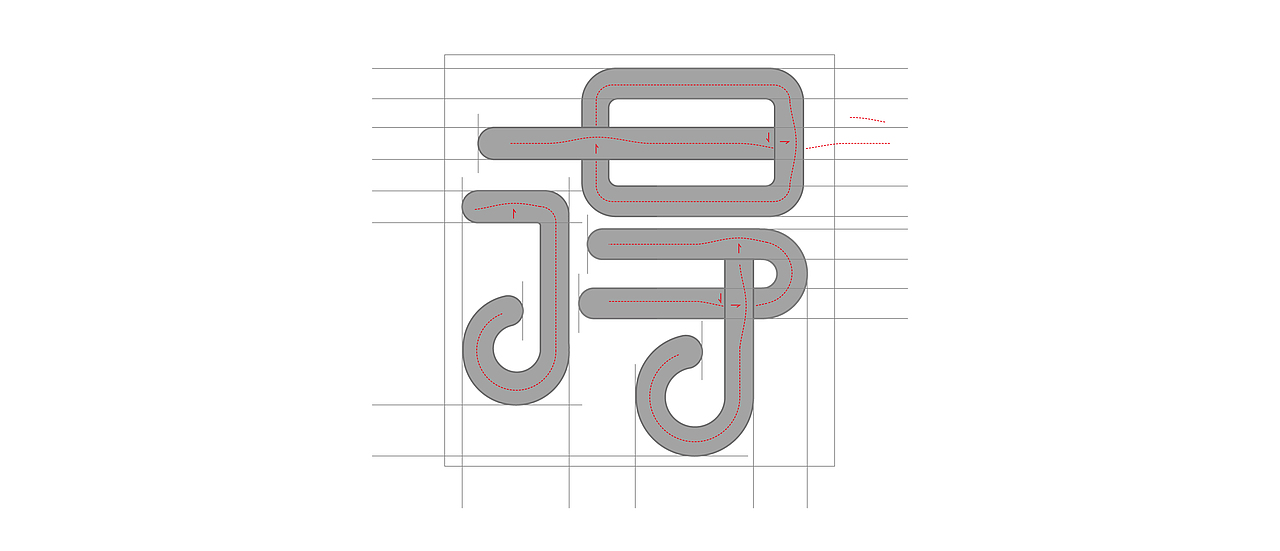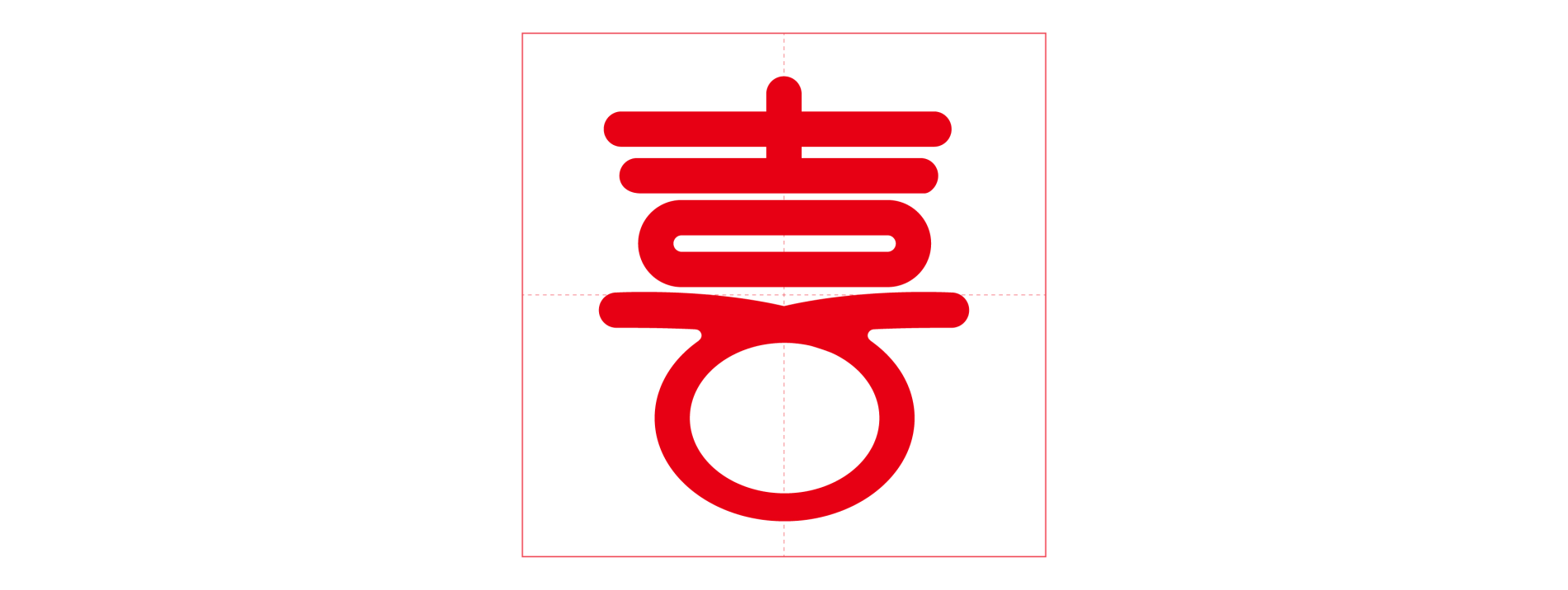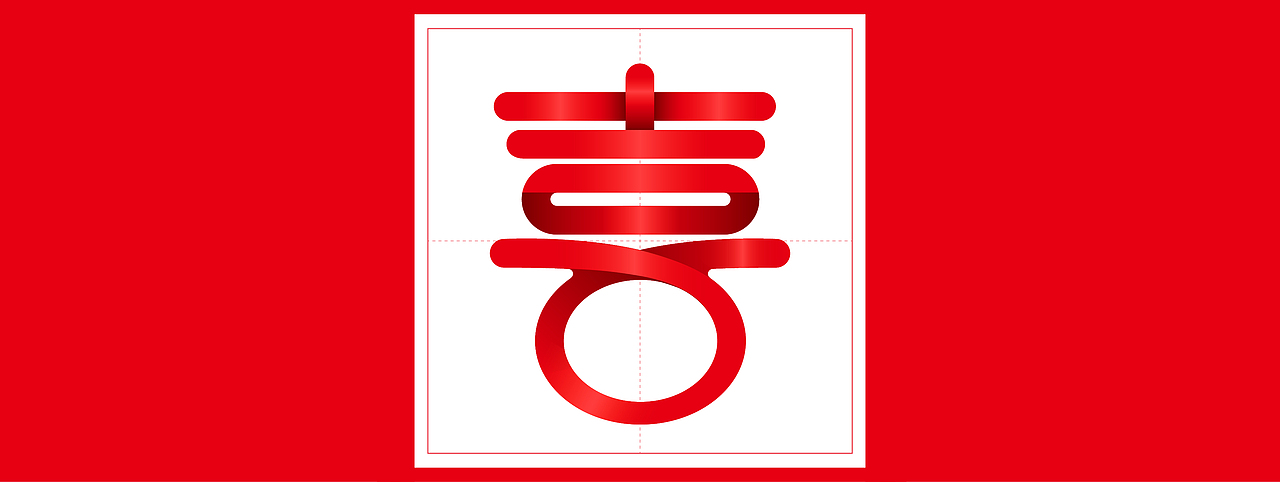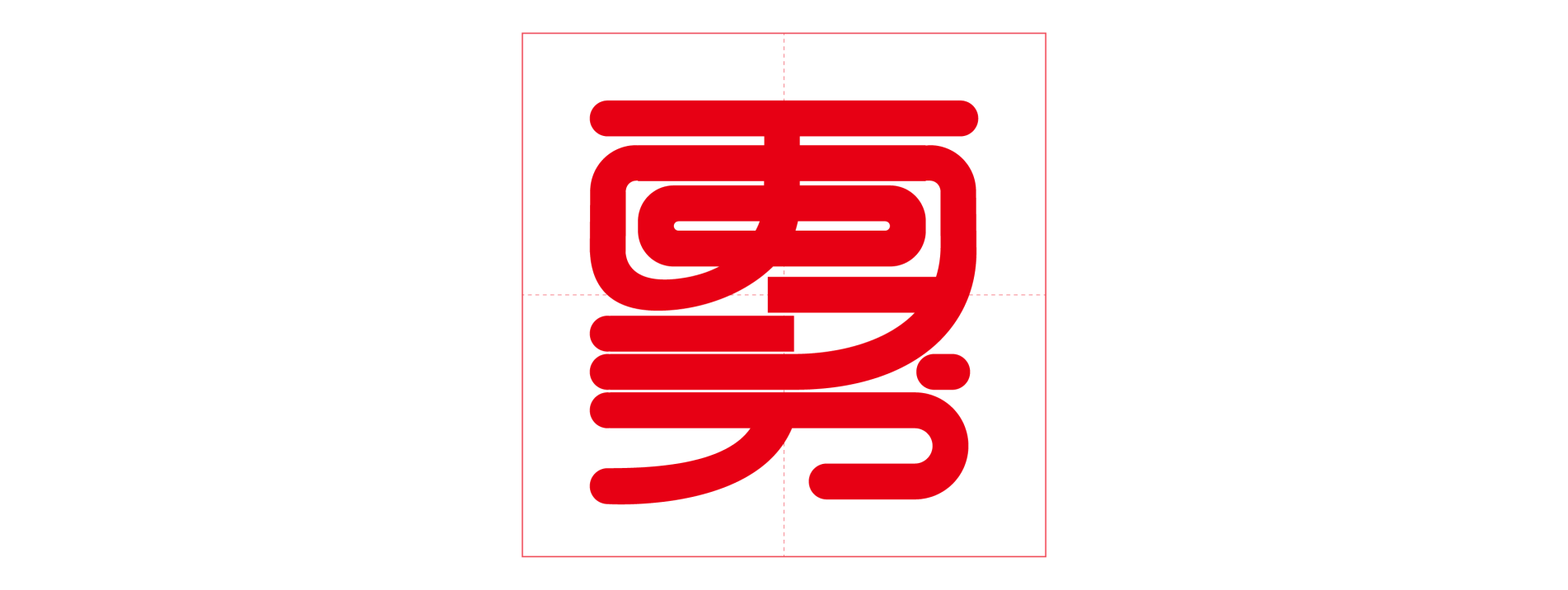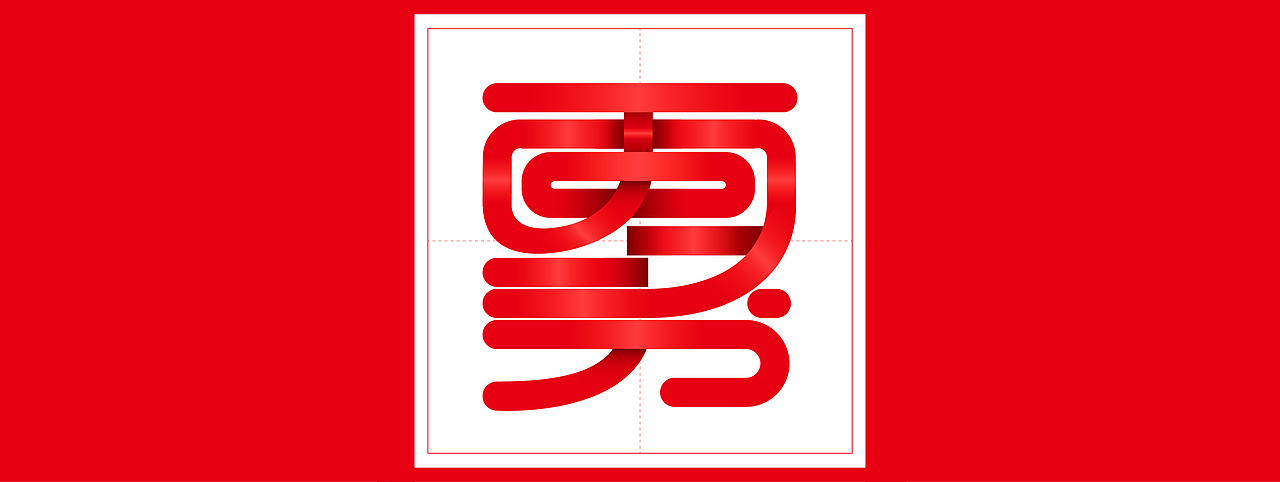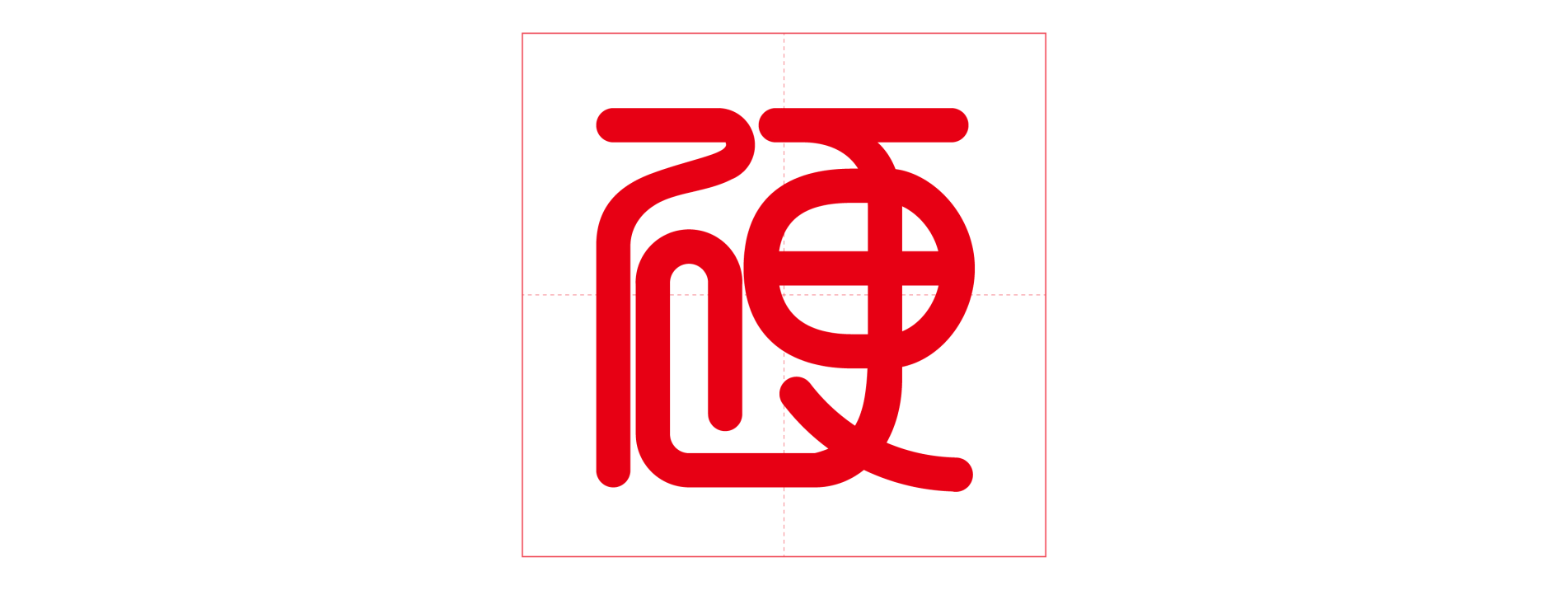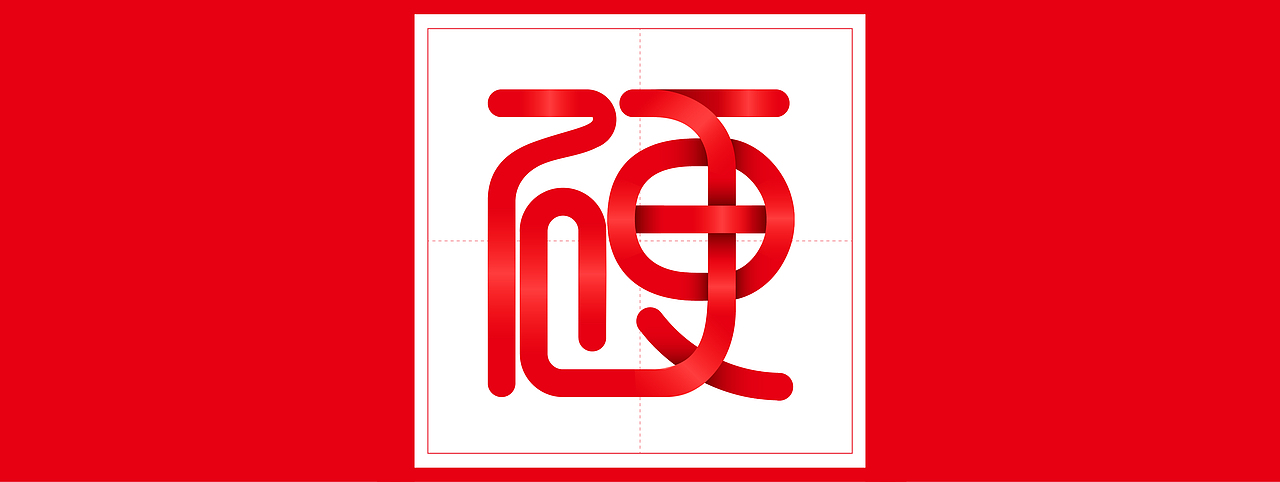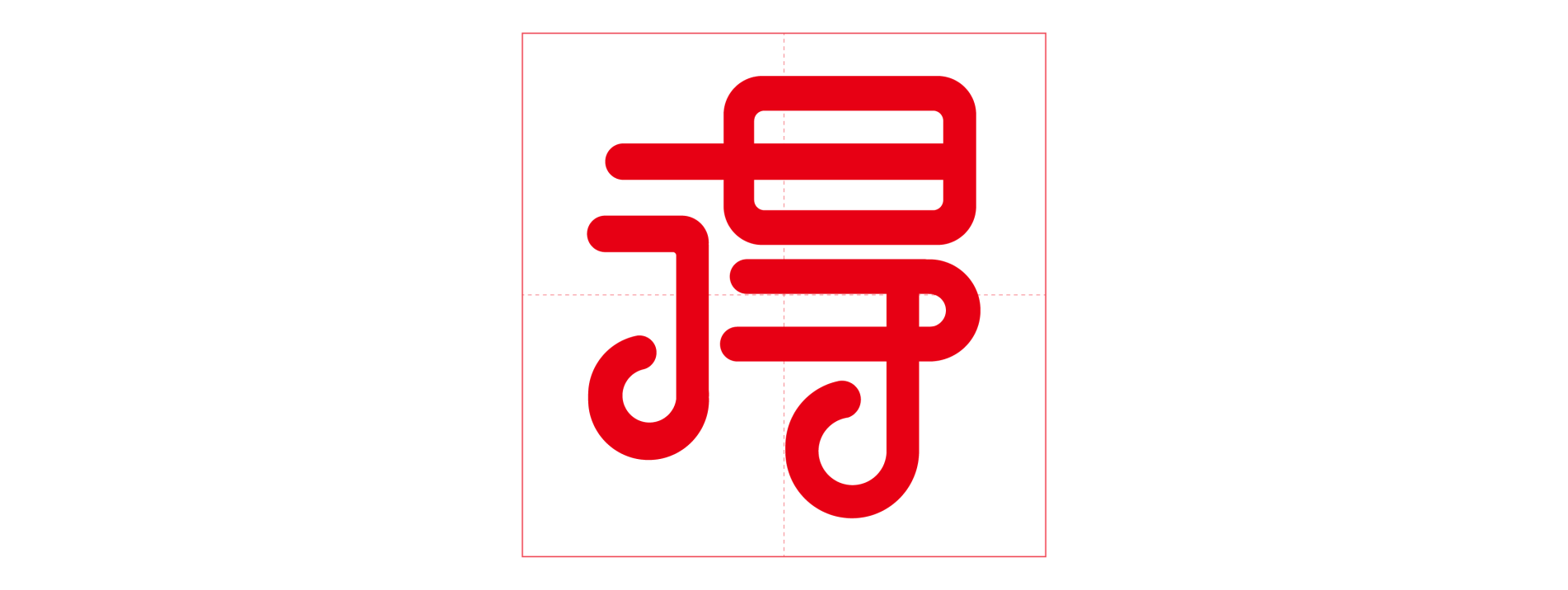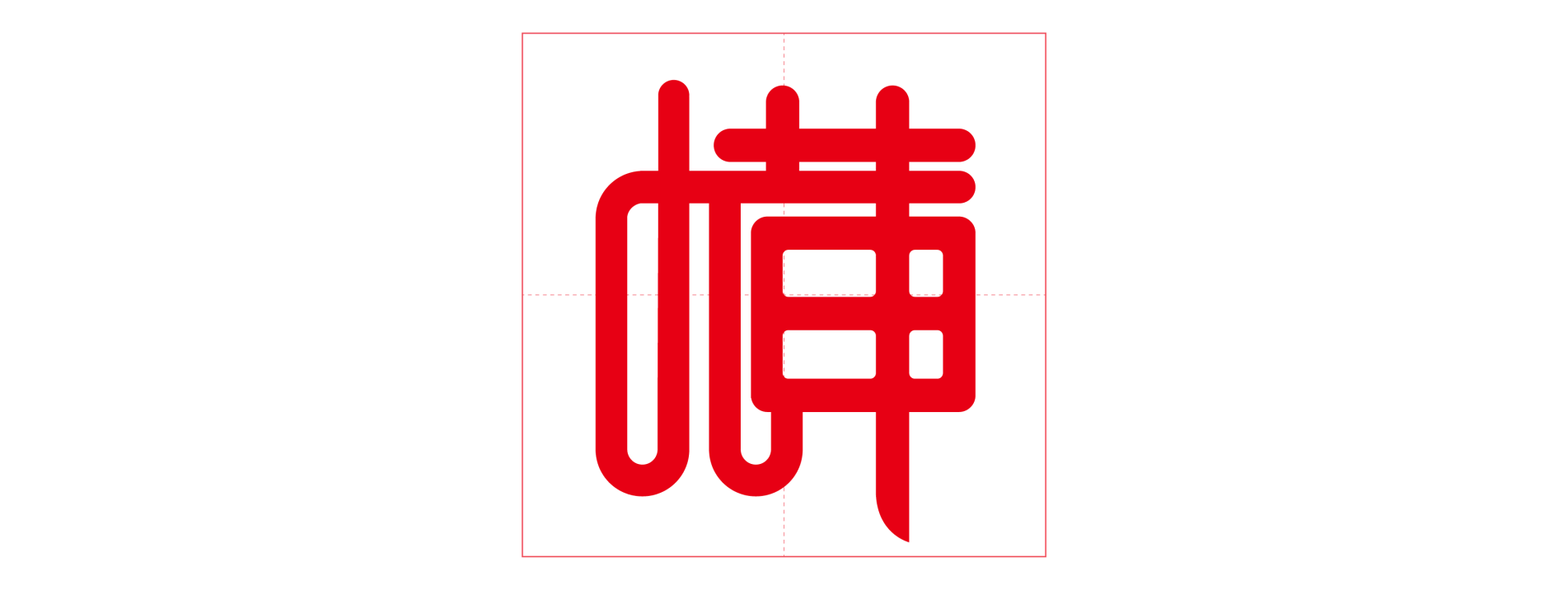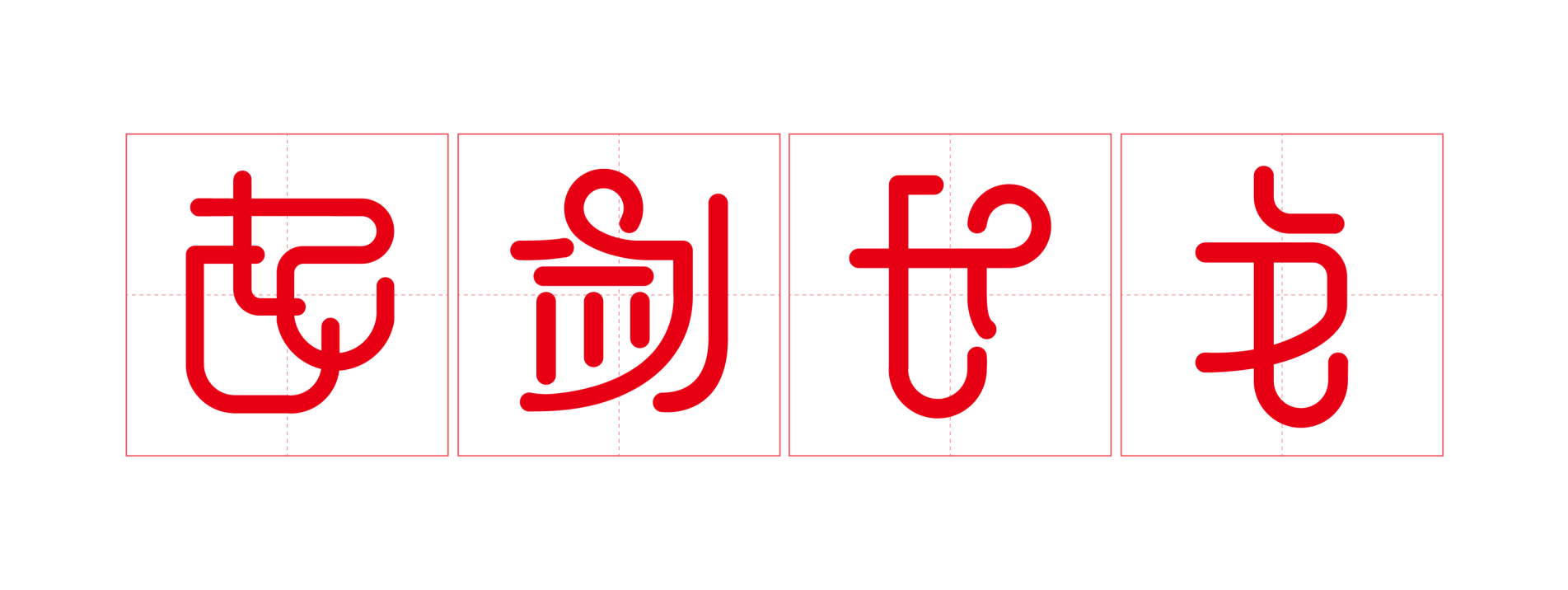
中国结体字体设计
Chinese knots began when ancestors wove knots to keep records of events.
It shows one side of the fantastic temperament and wisdom of the ancient Chinese civilization.
This is a coursework of font design.
Various structure and complication methods are interweaved with formation methods of Chinese contemporary words.